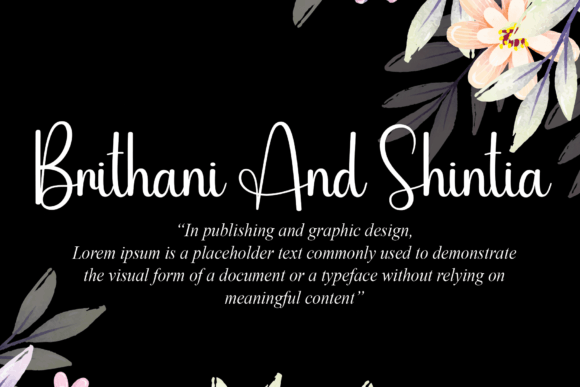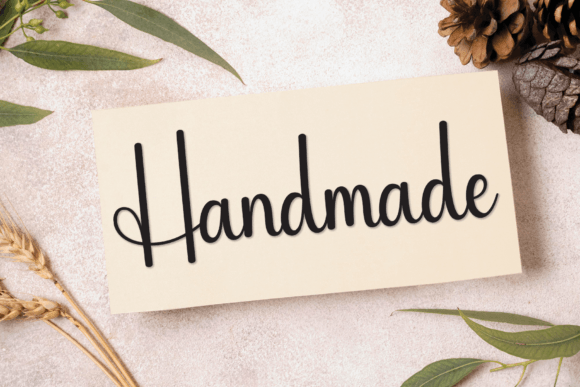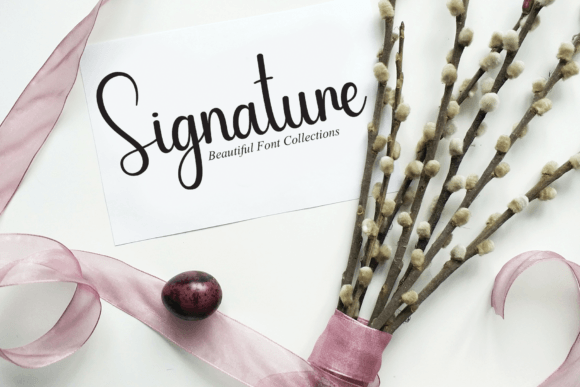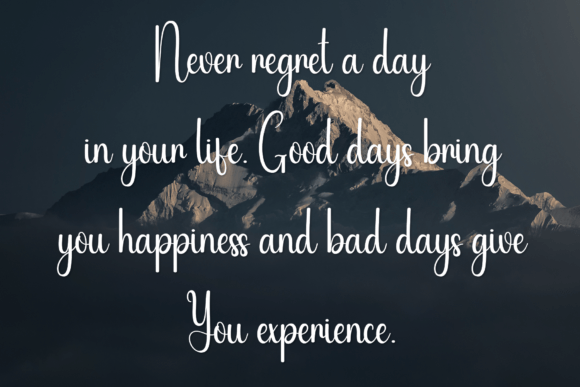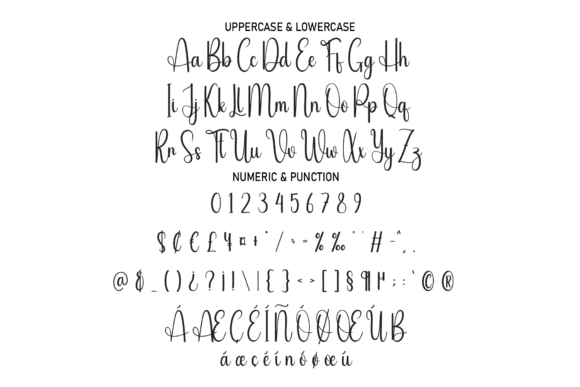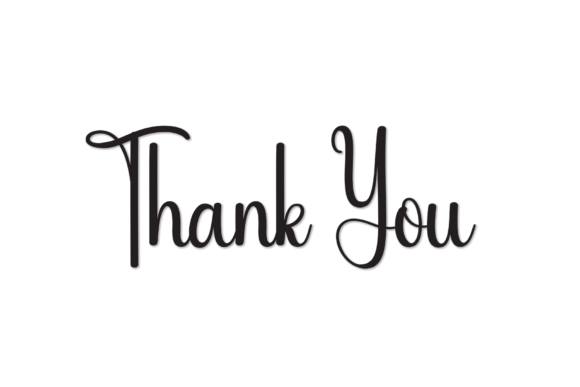
Adding a Personal Touch: The Magic of Disable Font
You know that moment when a font suddenly brings your design to life? For me, it’s the difference between a good idea and a great one. I recall working on a project and struggling to find the perfect font to match the tone of my client’s brand. That’s when I stumbled upon Disable Font – a delightful handwritten font that breathed new life into my design.
Disable Font is a versatile and casual handwritten font, designed to elevate your creative ideas and make them stand out. Its effortless charm makes it suitable for a wide range of applications, from marketing materials to social media graphics. As a designer, I can attest that having a font like Disable in your arsenal is invaluable – it gives you the freedom to experiment and push the boundaries of your creativity.
Key Features of “Disable Font”
- Unique Characteristic: The font is designed to be highly legible, even at small font sizes, making it ideal for use in applications where readability is critical.